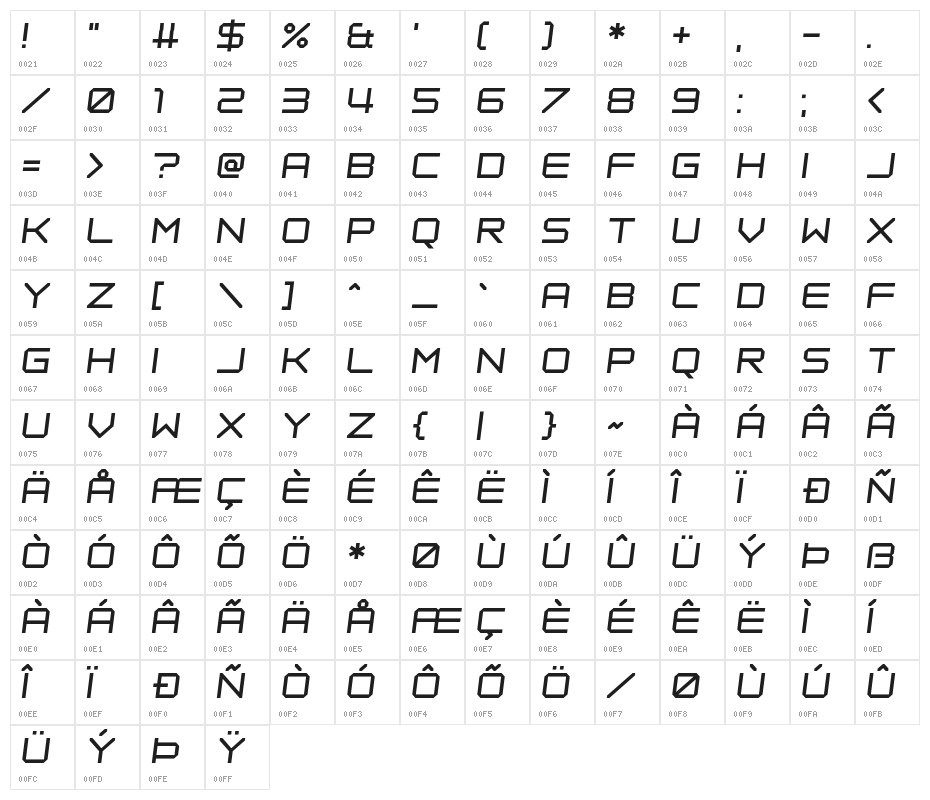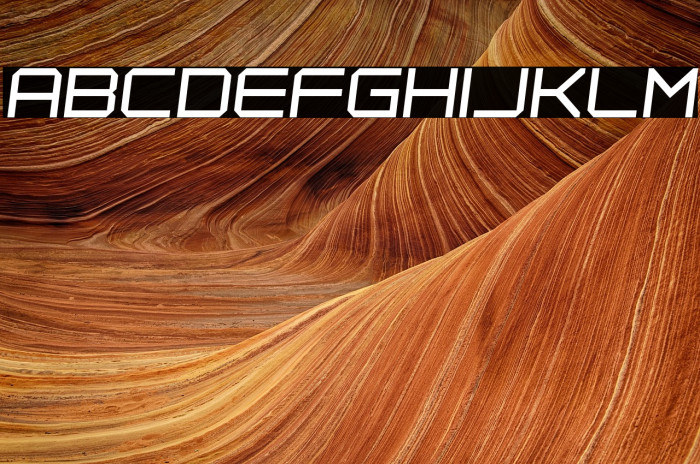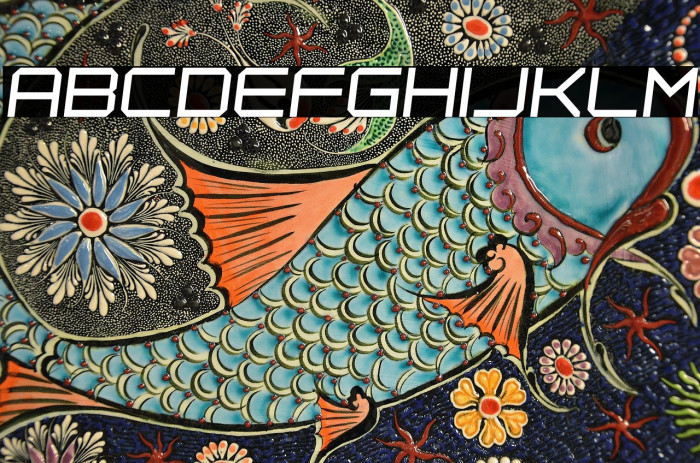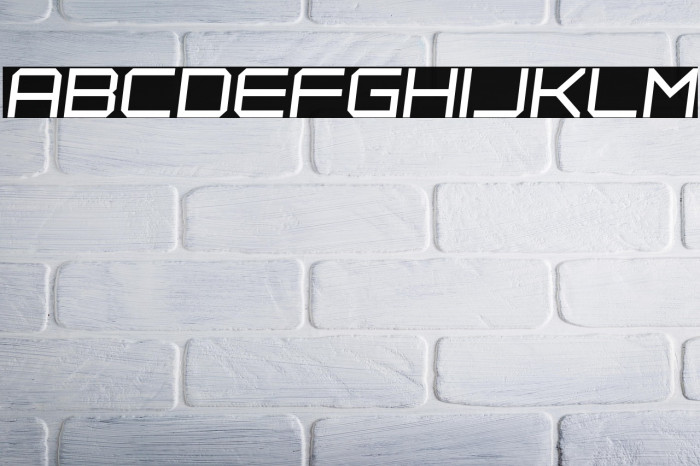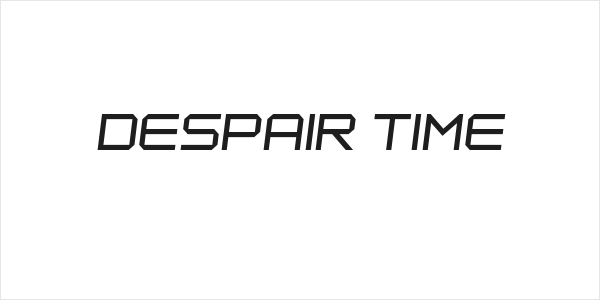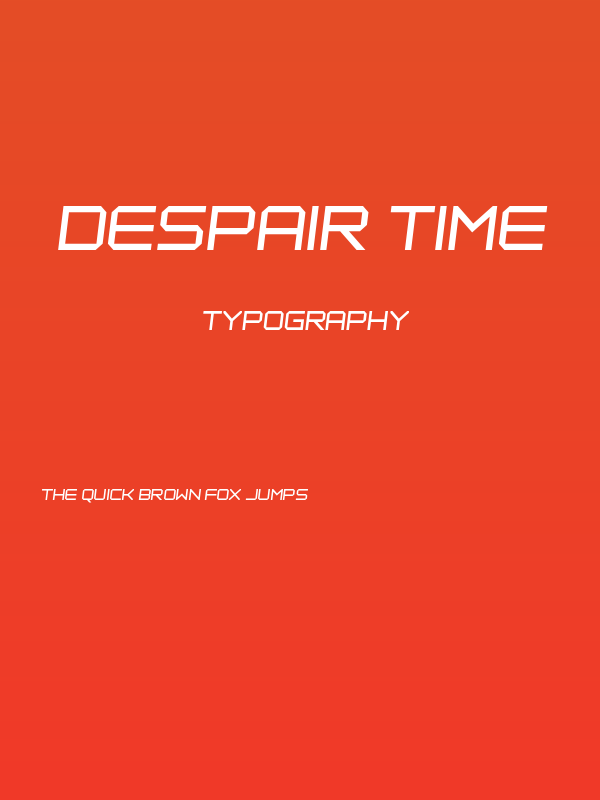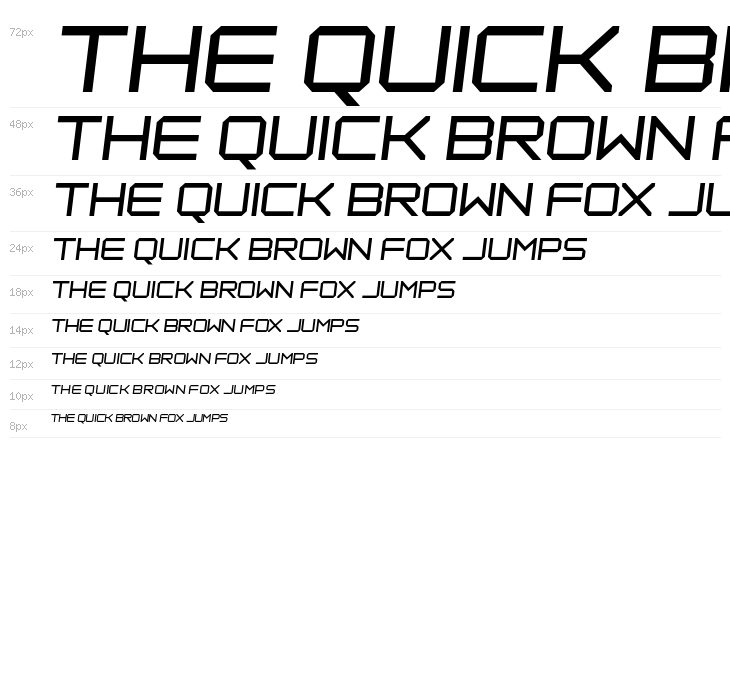
Despair Time Font
Despair Time Description
This font features a modern, angular design with a futuristic aesthetic. The characters are slightly slanted, giving a sense of motion and dynamism. The strokes are consistent in weight, providing a uniform appearance across all characters. The geometric shapes and sharp edges contribute to a sleek and cutting-edge look. The numbers and special characters maintain the same angular style, ensuring cohesion throughout the font set. This font is ideal for projects that require a contemporary and tech-savvy feel.